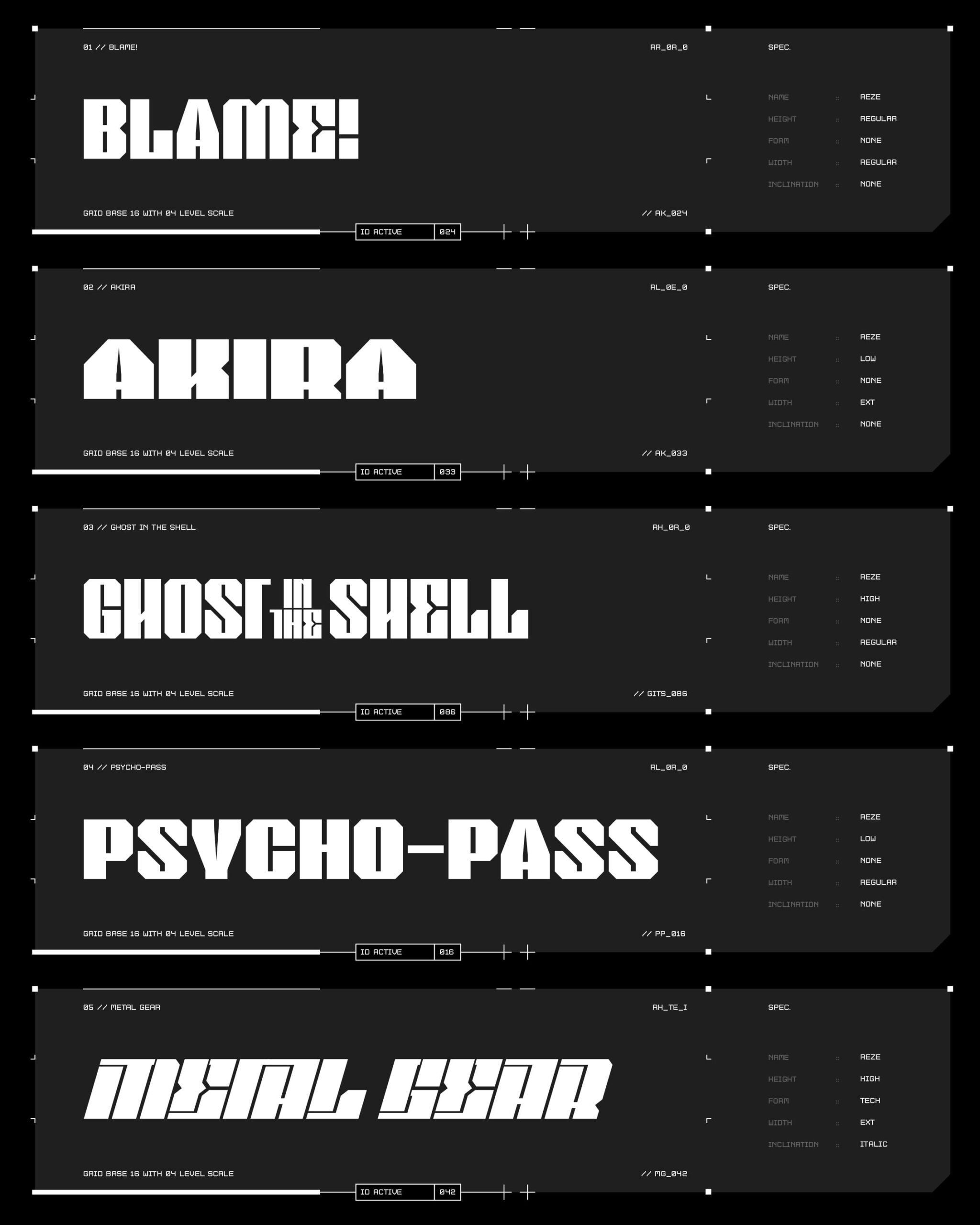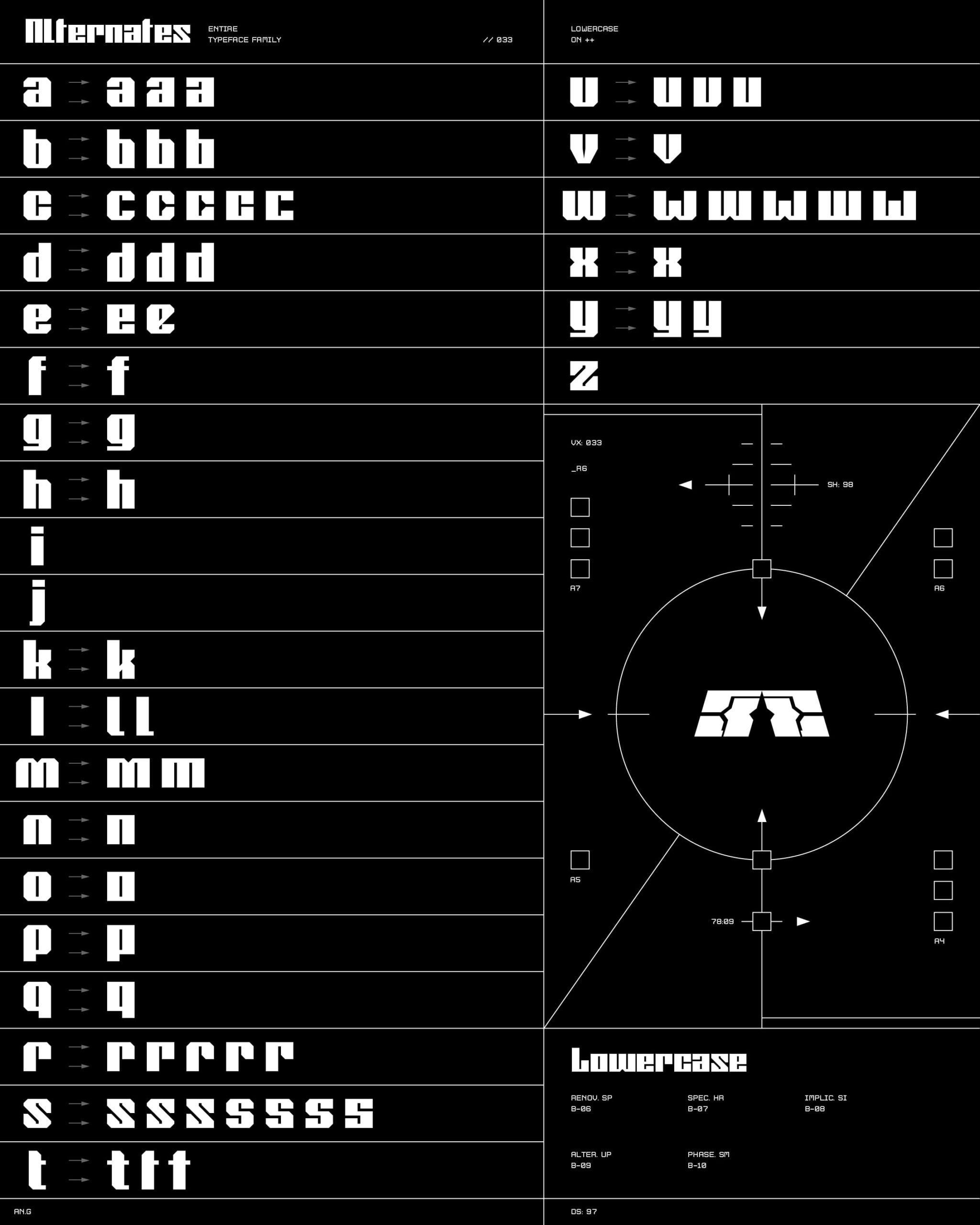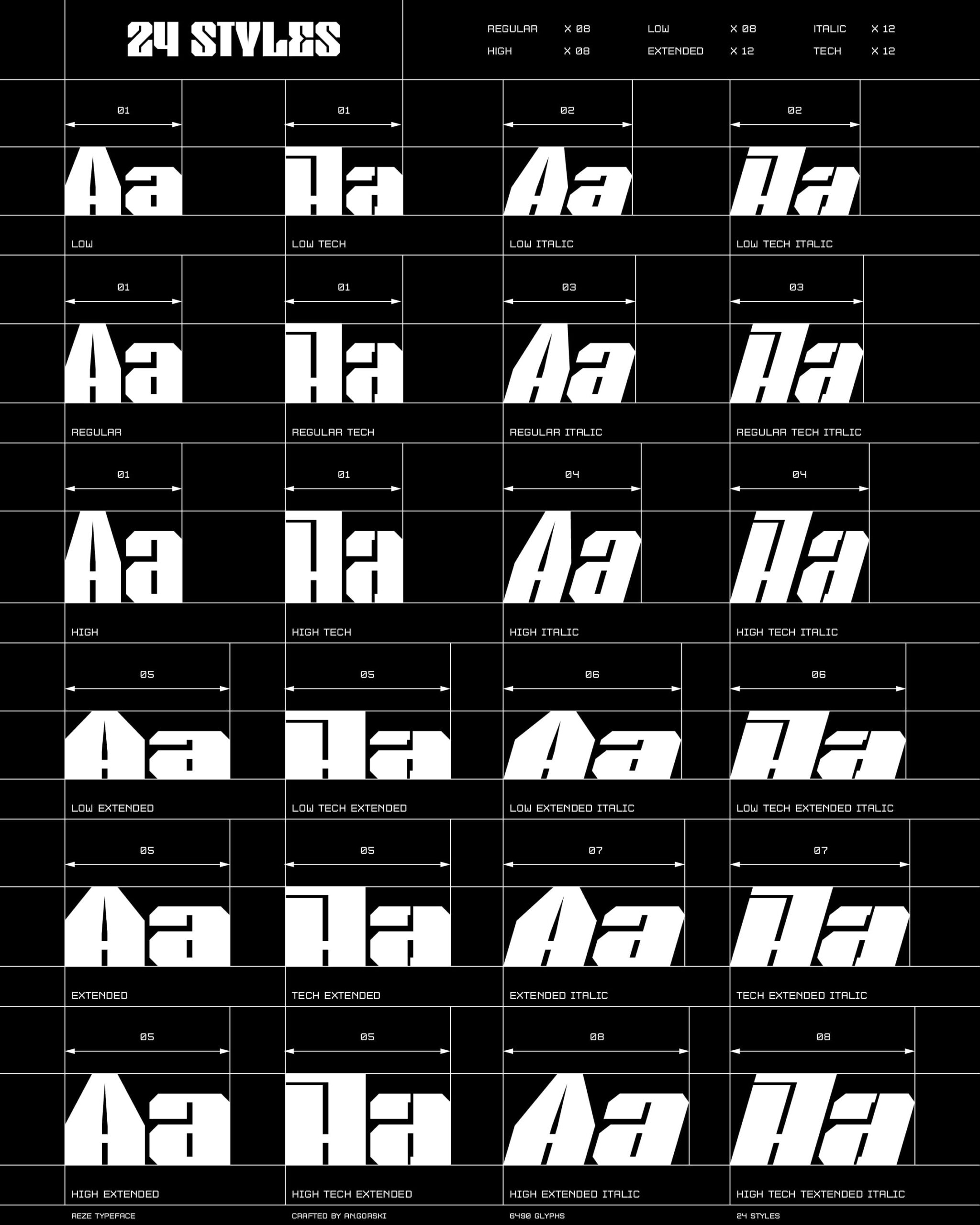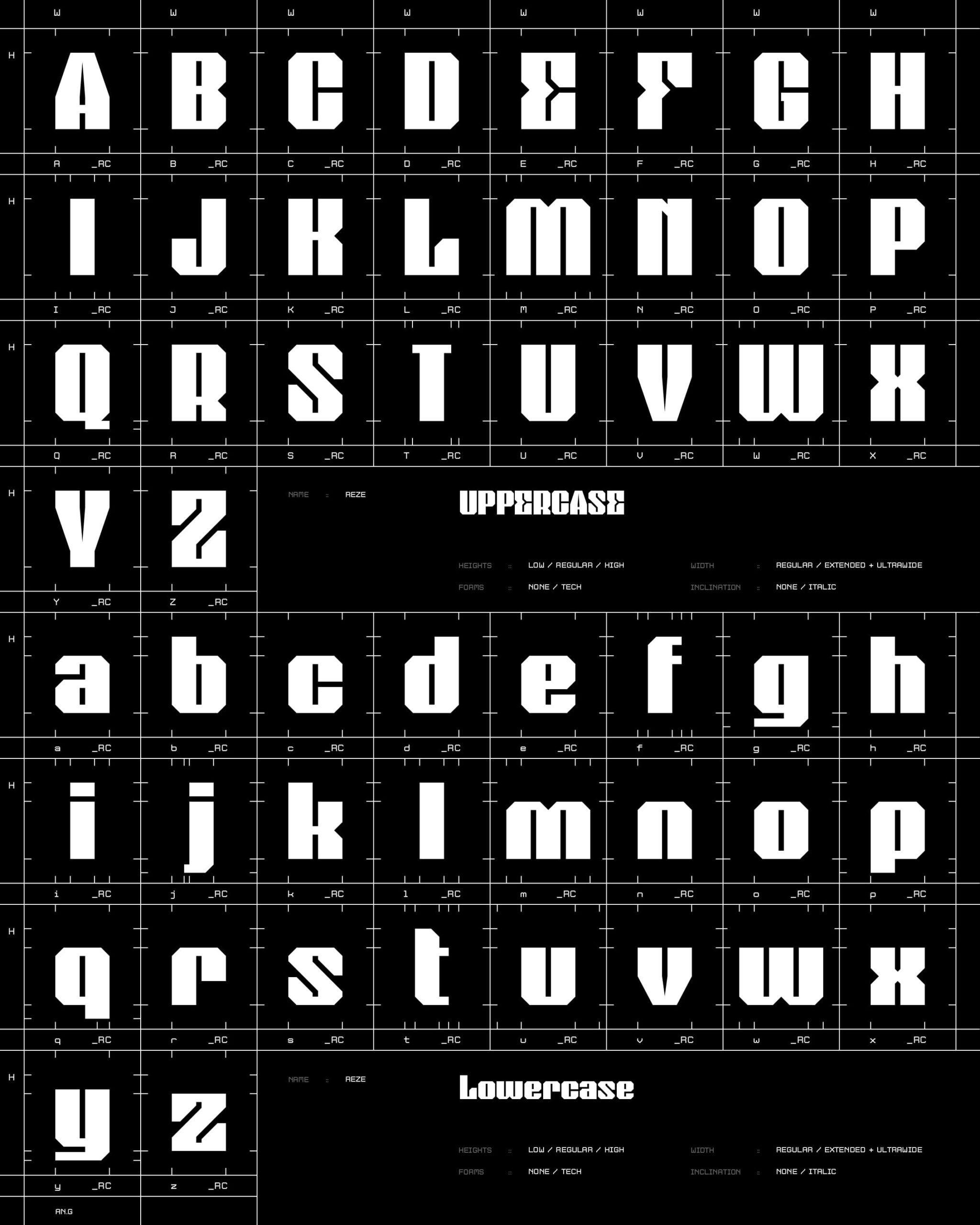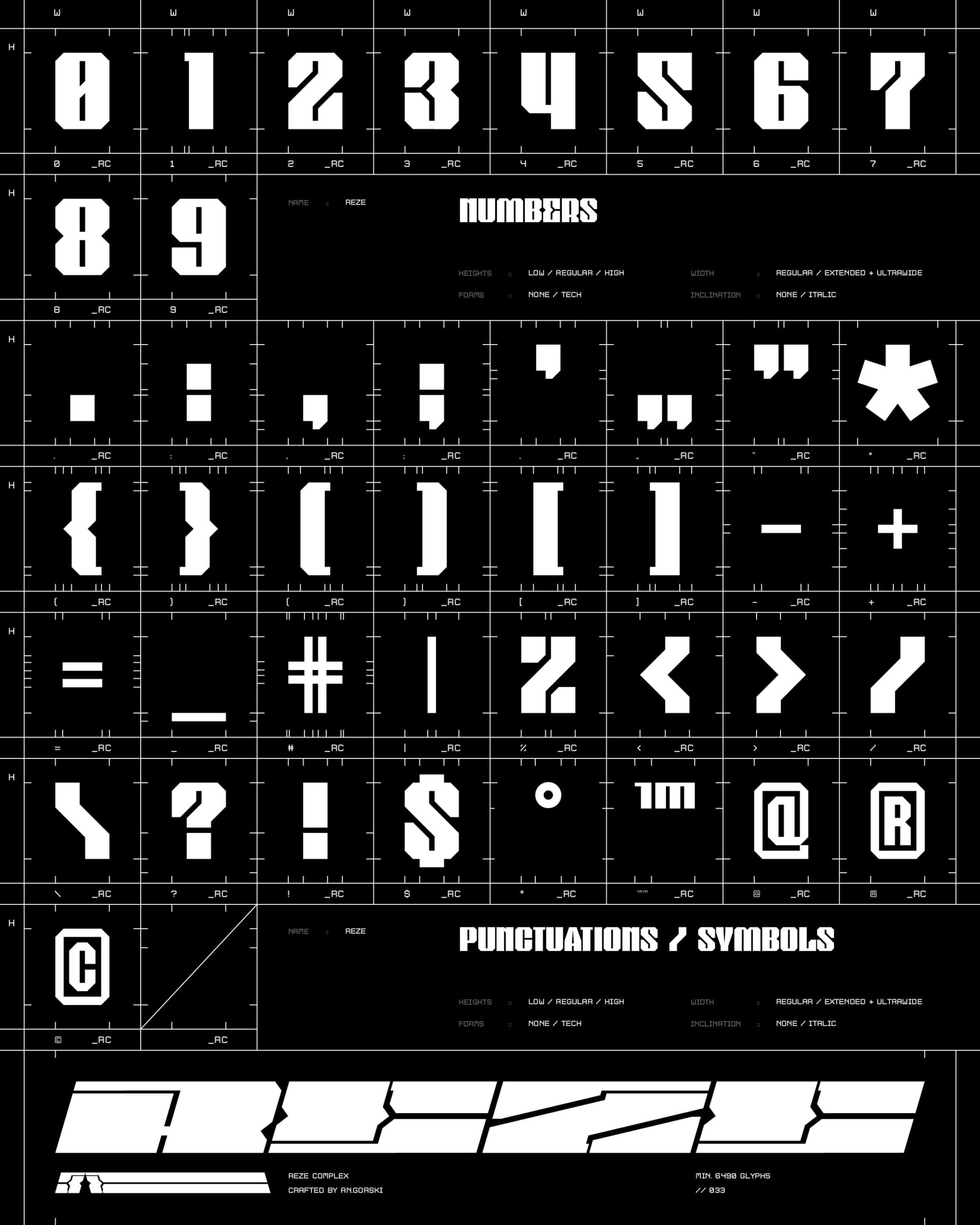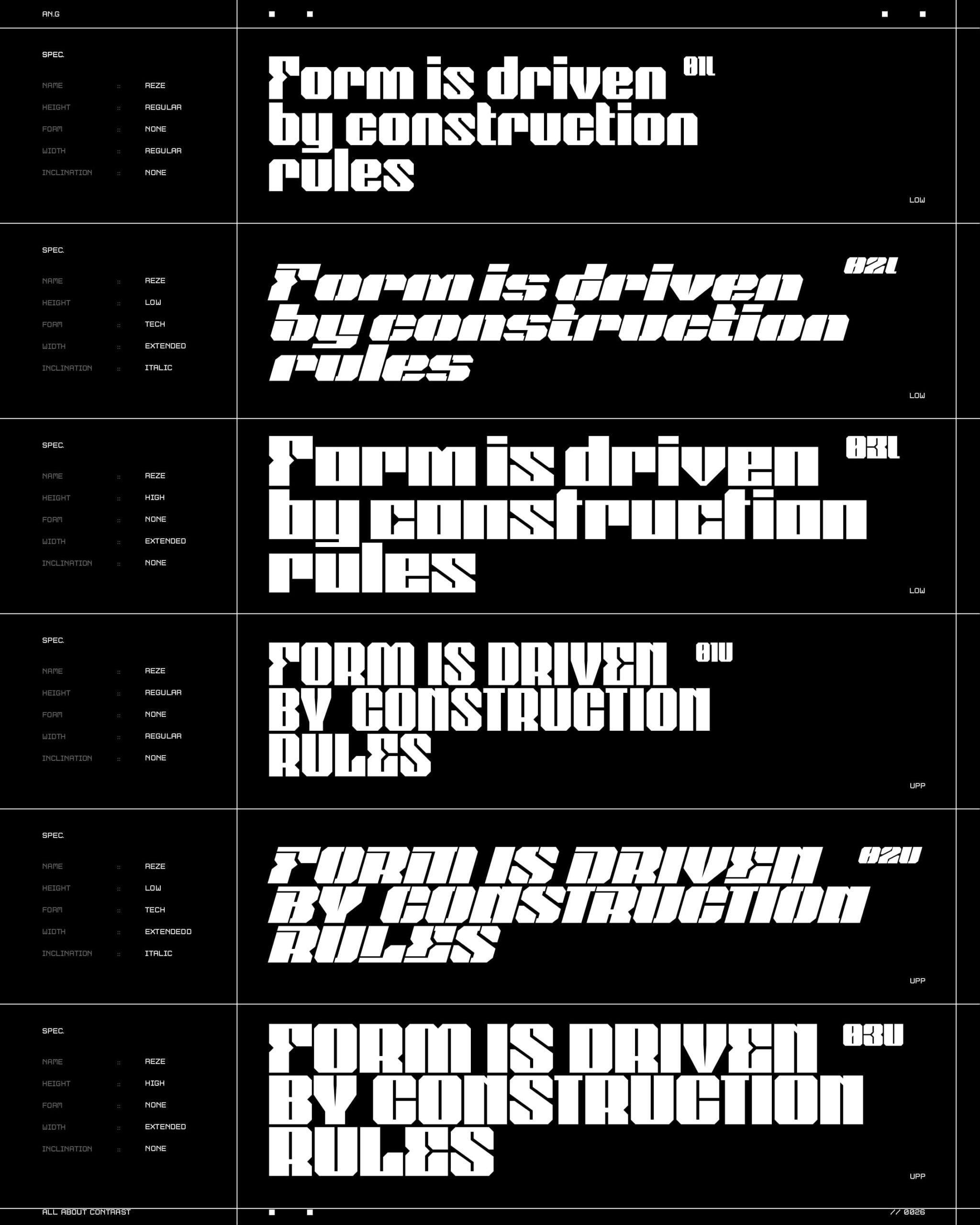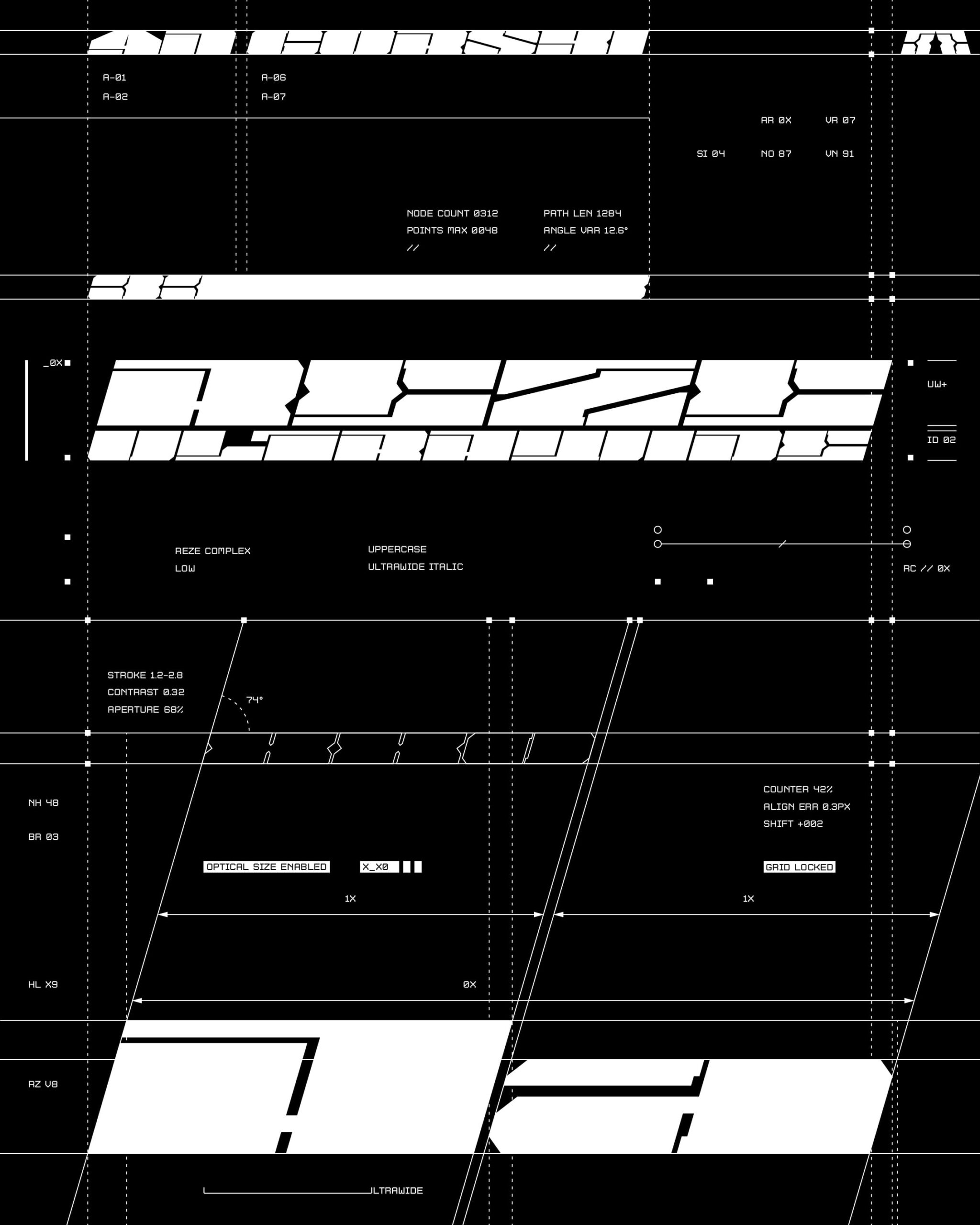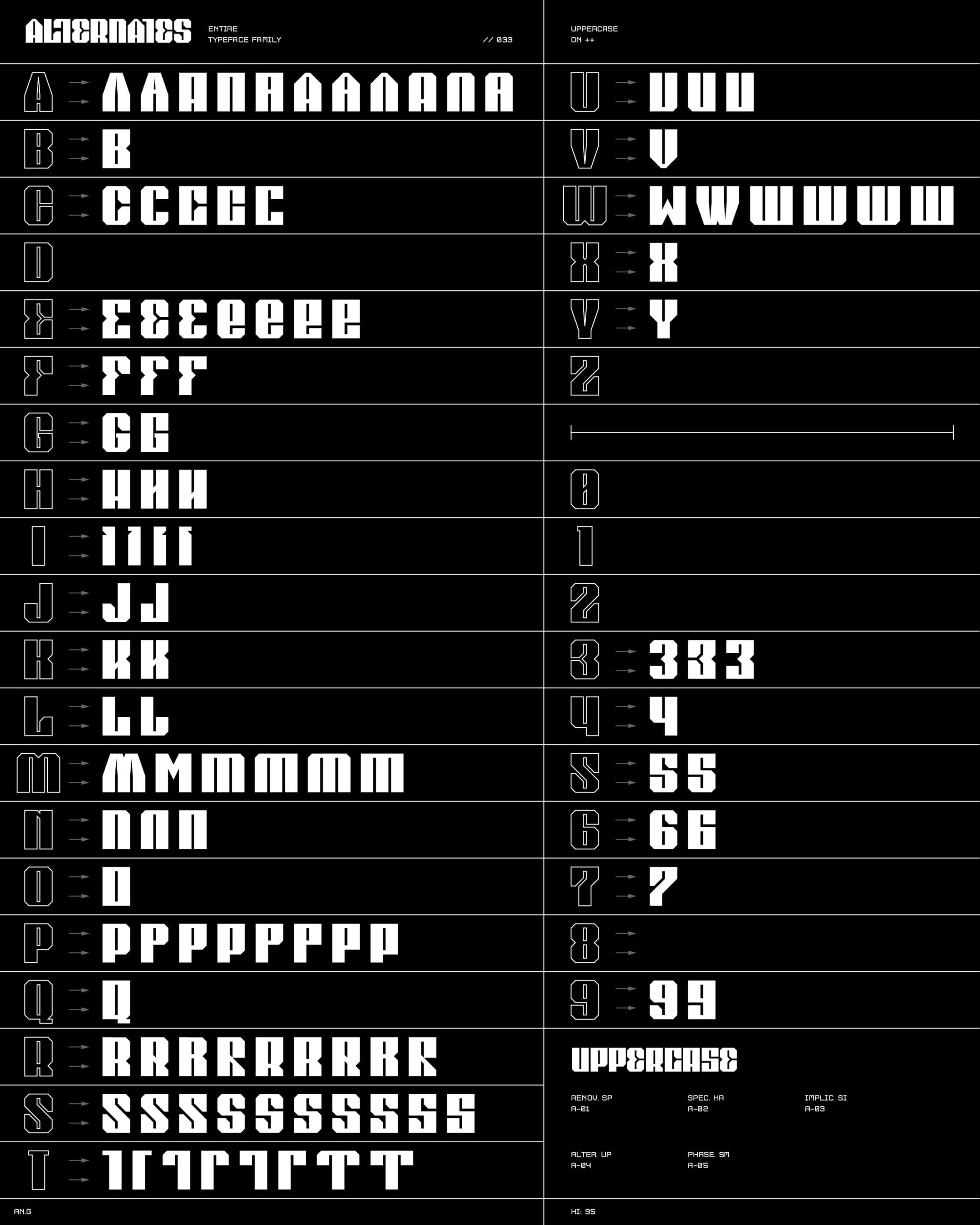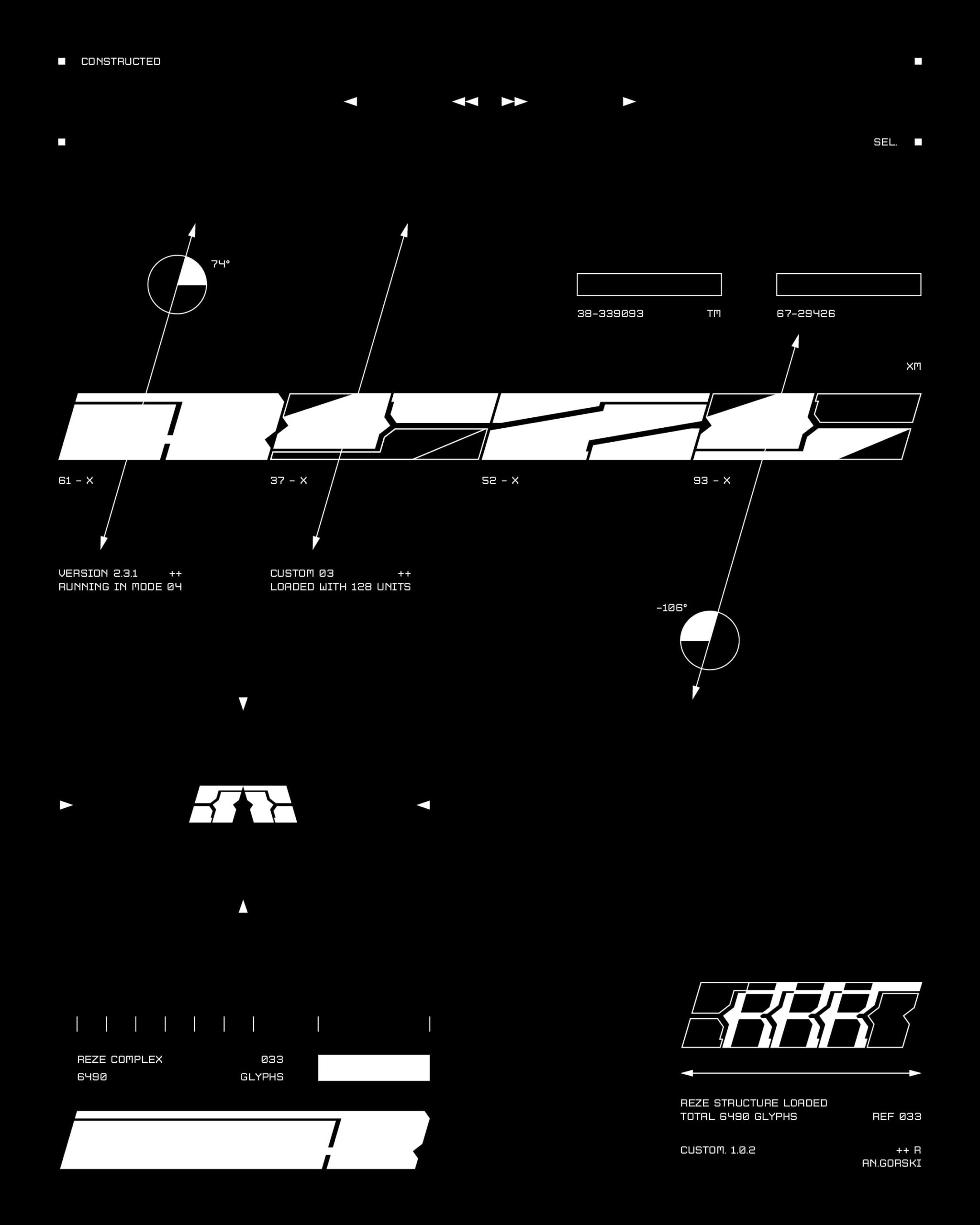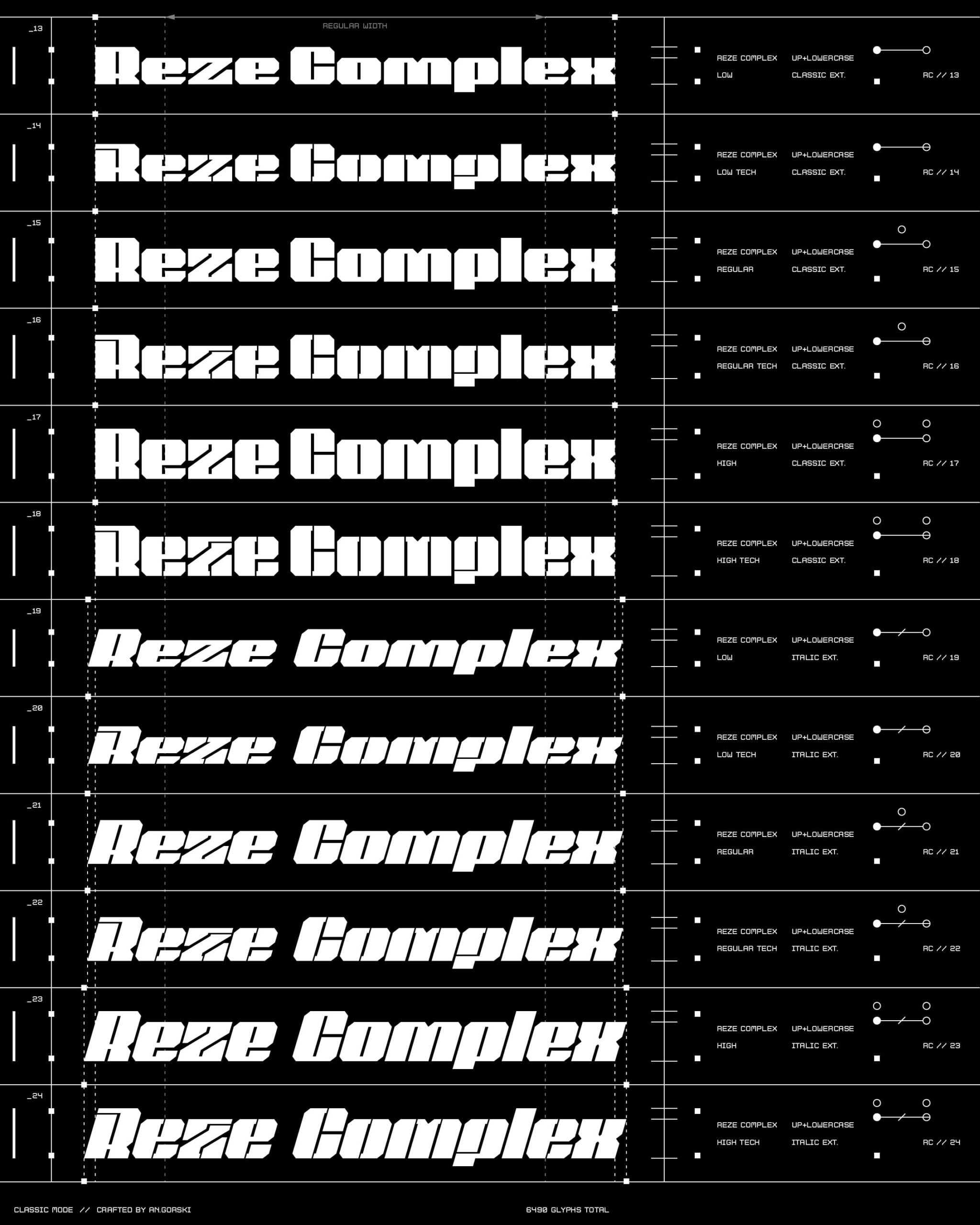
REZE is a modular display typeface engineered like a system rather than designed as a single font.
Every character is built from a shared structural logic, allowing the family to transform across
multiple configurations while preserving a consistent visual identity.
Inspired by industrial interfaces, mecha aesthetics, cyberpunk architecture, and sci-fi typography,
REZE balances rigid geometry with controlled disruption. Sharp cuts, segmented joints, and
adaptive construction rules create a type system that can move from compact and authoritative to
aggressive, technical, and high-speed.
Height
• Low
• Regular
• High
Form
• Classic
• Tech
Width
• Classic
• Extended
Inclination
• Classic
• Italic
Family Overview
• 1 Typeface Family
• 25 Styles
• Full Uppercase & Lowercase Character Set
• 6,300+ Glyphs
• 4,000+ Alternate Characters
• Extensive OpenType Features
Styles
• Reze-High
• Reze-High-Italic
• Reze-High-Tech
• Reze-High-Tech-Italic
• Reze-Low
• Reze-Low-Italic
• Reze-Low-Tech
• Reze-Low-Tech-Italic
• Reze-Regular
• Reze-Regular-Italic
• Reze-Regular-Tech
• Reze-Regular-Tech-Italic
• Reze-High-Extended
• Reze-High-Extended-Italic
• Reze-High-Tech-Extended
• Reze-High-Tech-Extended-Italic
• Reze-Low-Extended
• Reze-Low-Extended-Italic
• Reze-Low-Tech-Extended
• Reze-Low-Tech-Extended-Italic
• Reze-Regular-Extended
• Reze-Regular-Extended-Italic
• Reze-Regular-Tech-Extended
• Reze-Regular-Tech-Extended-Italic
• Reze-Ultrawide